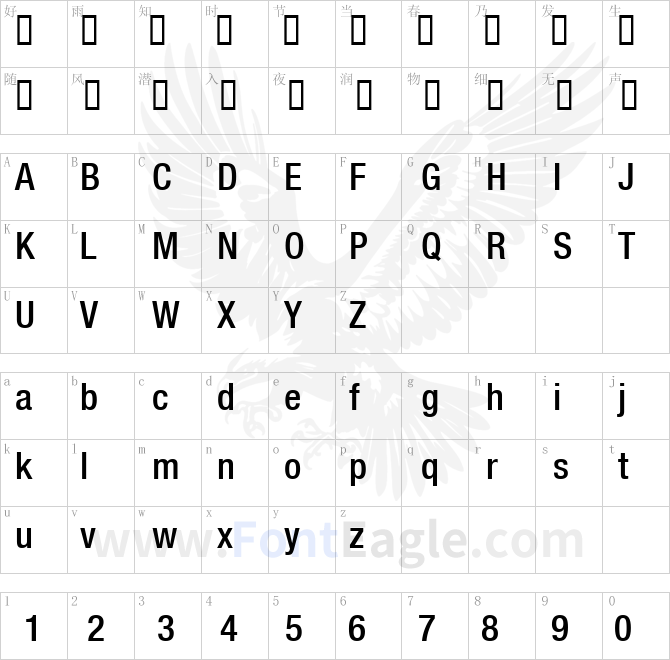
- Font name:HelveticaNeue MediumCond
- Font Subfamily ID:Linotype-Hell AG HelveticaNeue MediumCond
- Font Full Name:Helvetica 67 Medium Condensed
Helvetica-67-Medium-Condensed is a great font, widely used in graphic design, single-page menu design, poster design and other fields, and is deeply loved by designers.Helvetica-67-Medium-Condensed download.